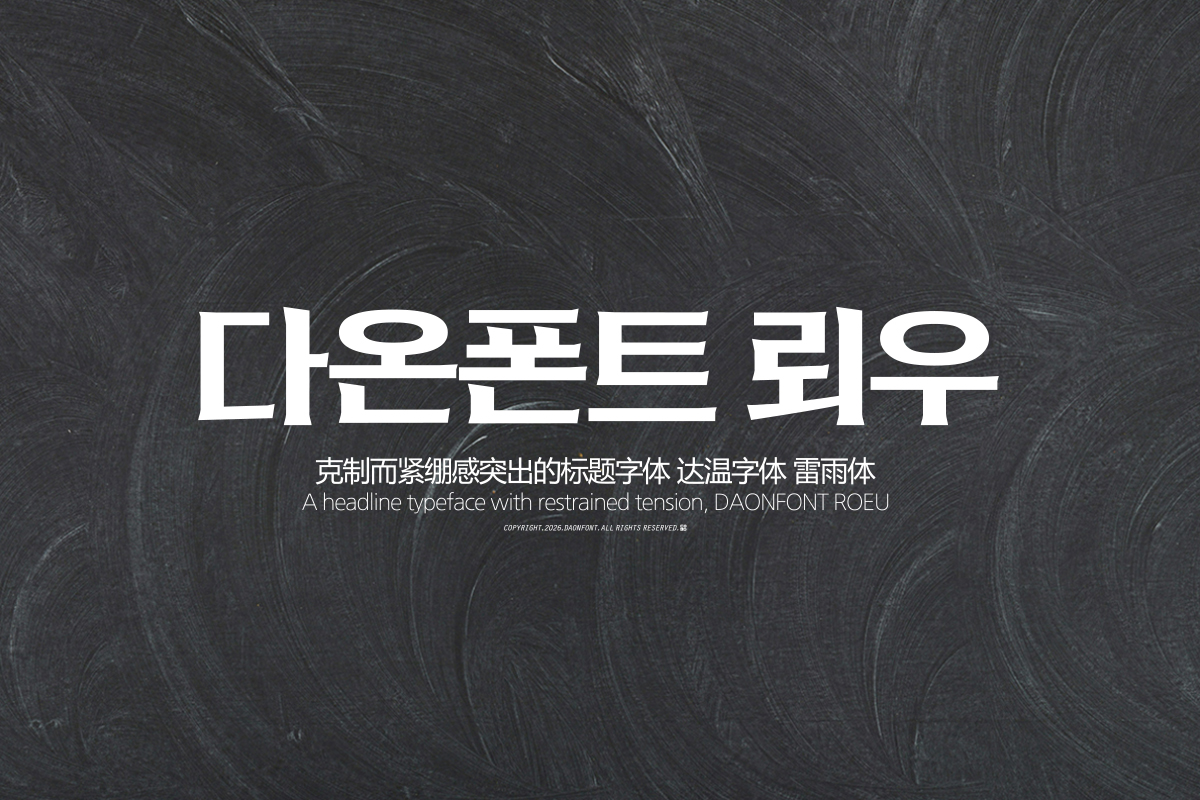
DAON LOEU(B)
'LOEU' font is more concise than any ornament, sleeker than any form, and achieves a perfect balance between intensity and refinement. It is a typeface where sharp angles draw a stroke and restrained serifs draw the eye.